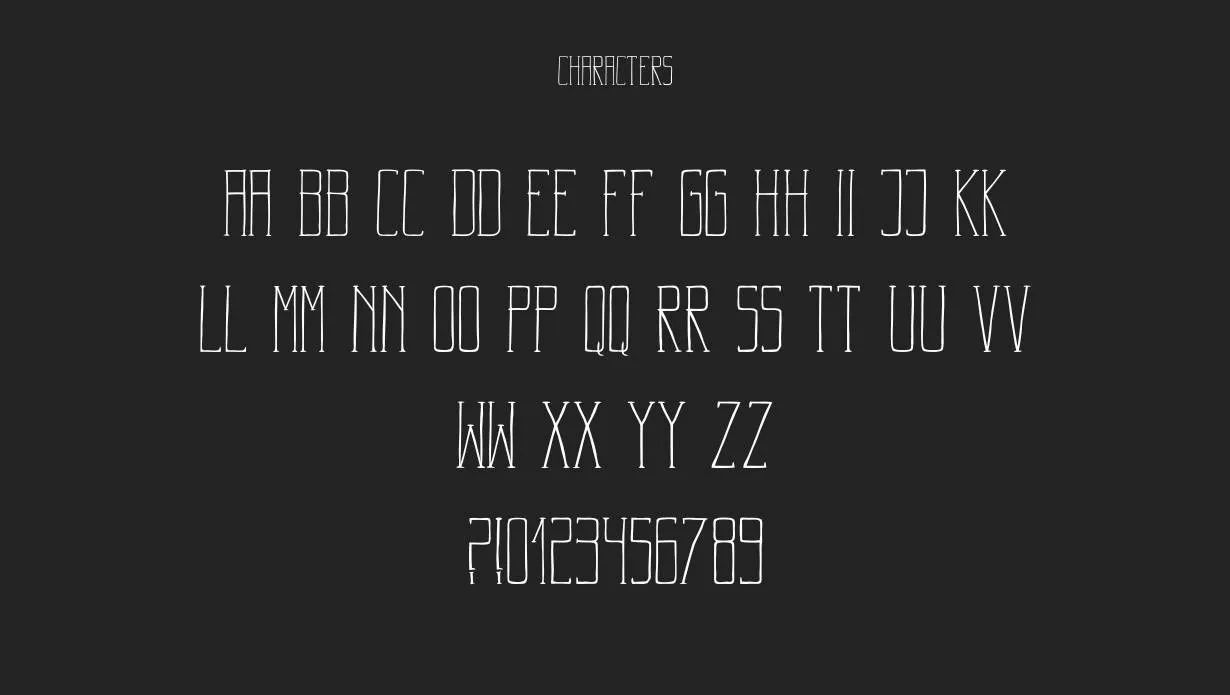
The Badass Typography Regular Font is a powerful and impactful typeface designed to make a bold statement. The designer behind this font aimed to convey strength and attitude through every character.
With its sharp edges and strong presence, Badass Typography Regular is often chosen for designs that require a fearless and edgy aesthetic. The designer’s vision was to create a font that stands out and leaves a lasting impression, making it a go-to choice for projects demanding a touch of rebellious style.
View of Badass Typography Regular Font
Badass Typography Regular Font Info
| Name | Badass Typography Regular Font |
| Designer | Robin Röcker |